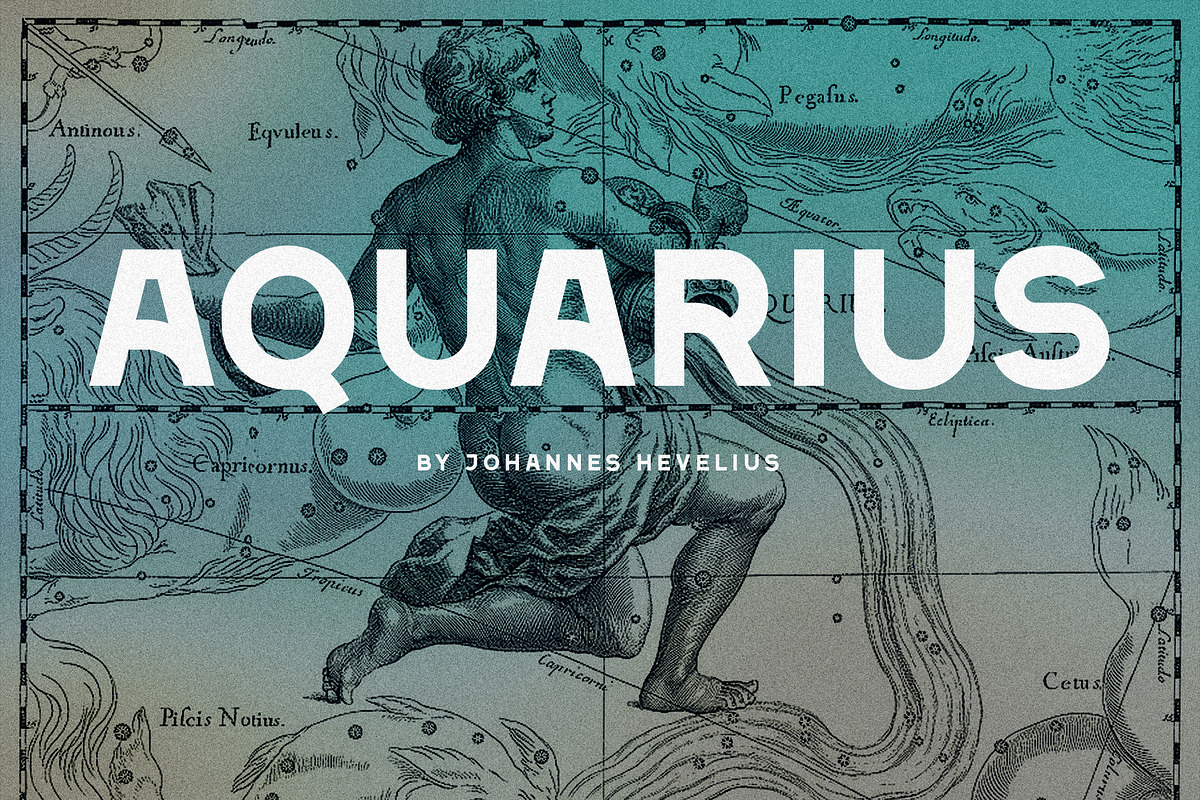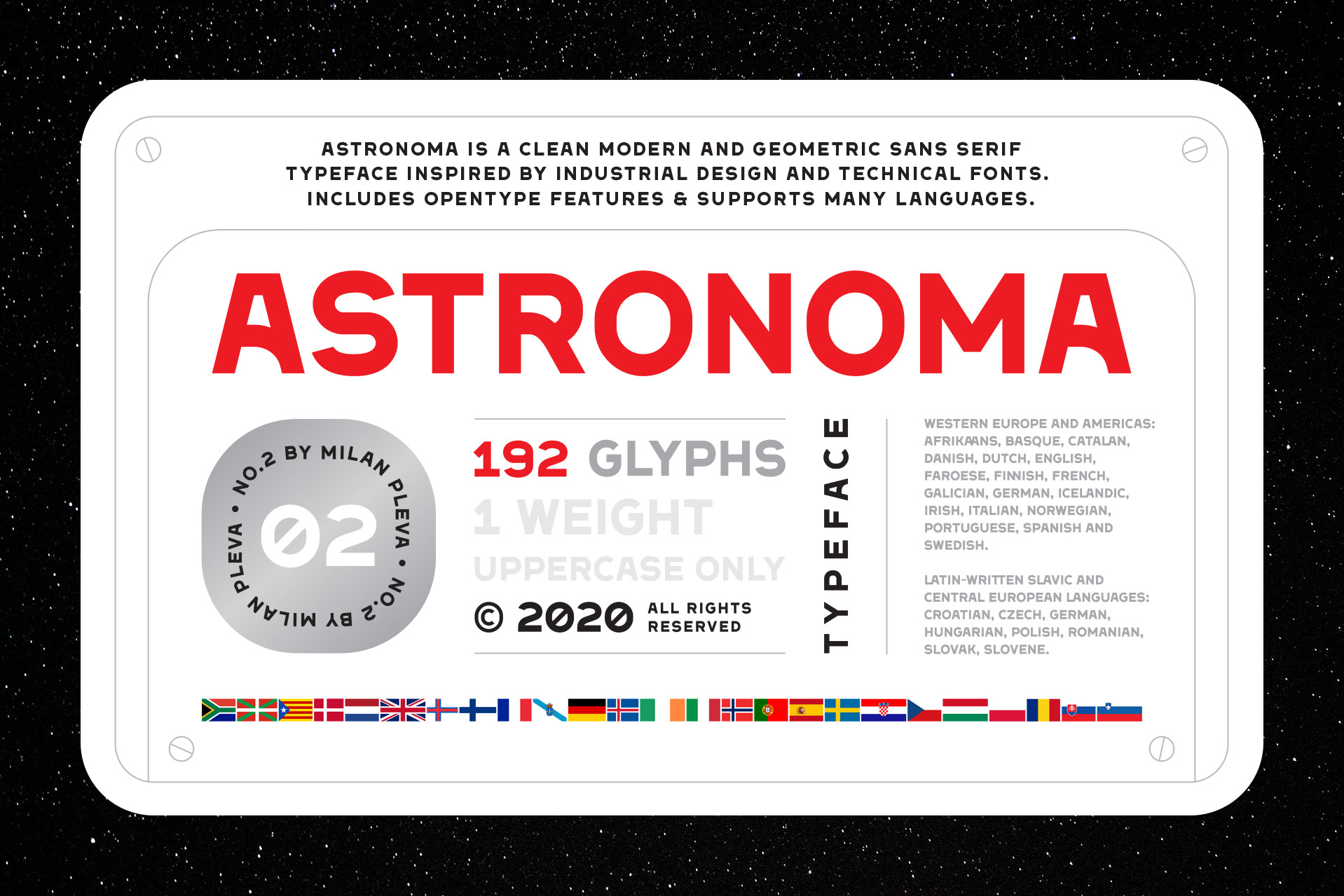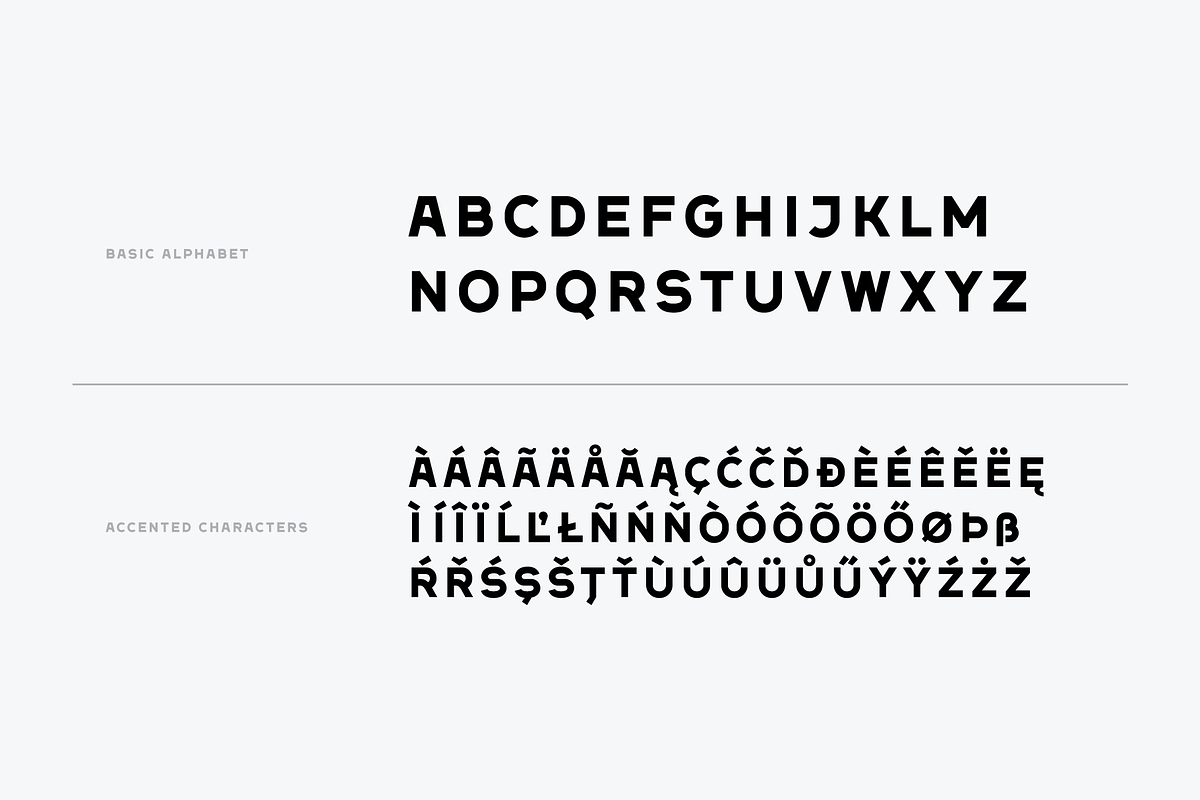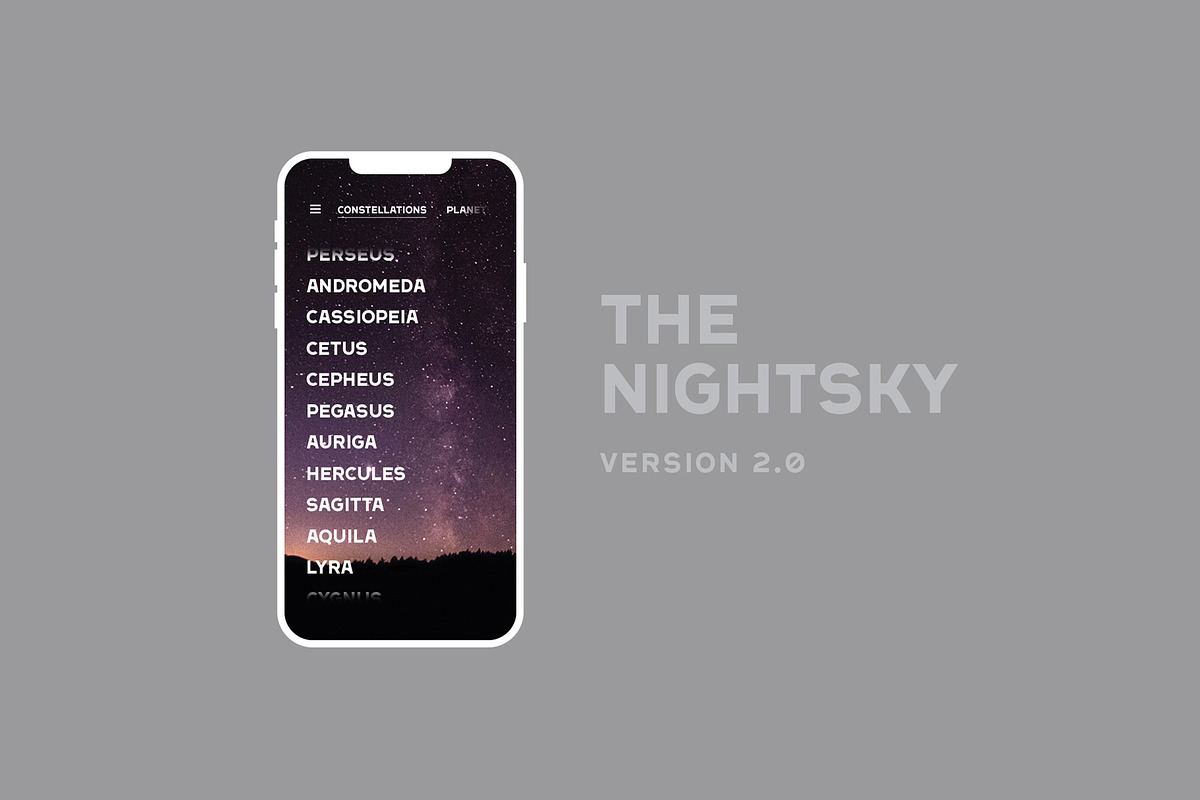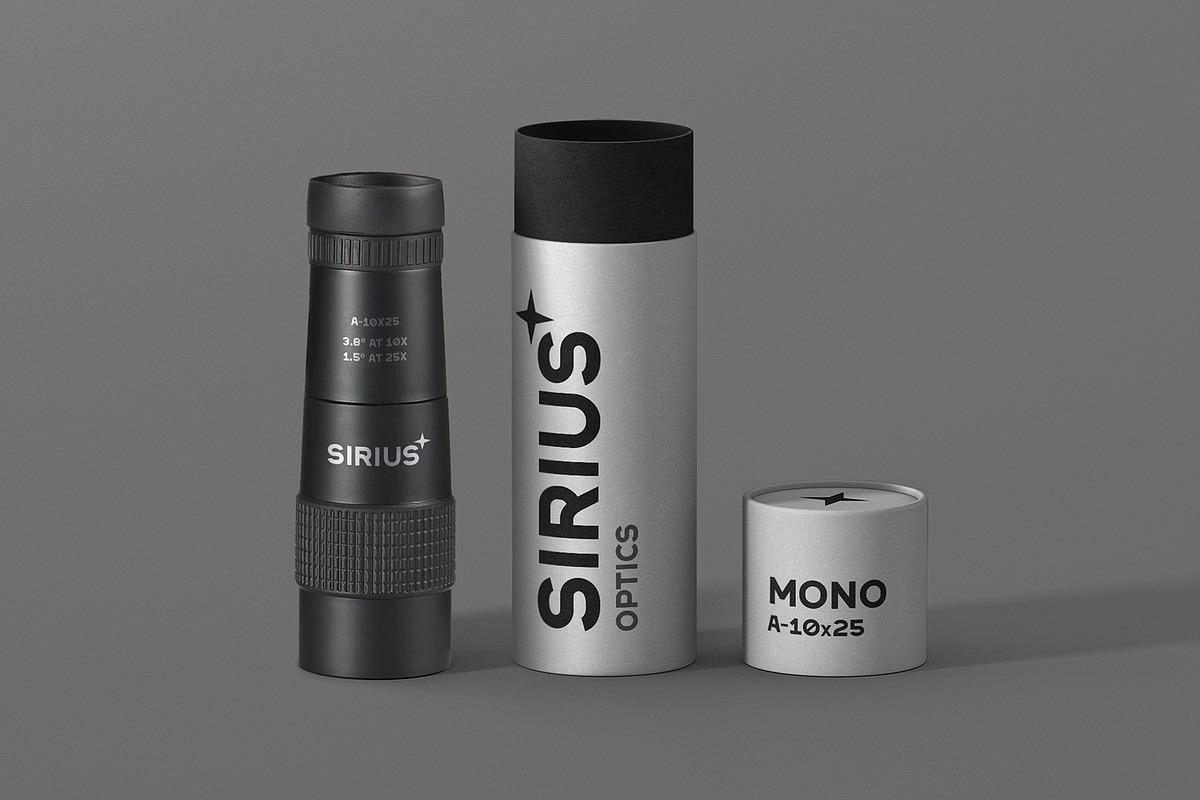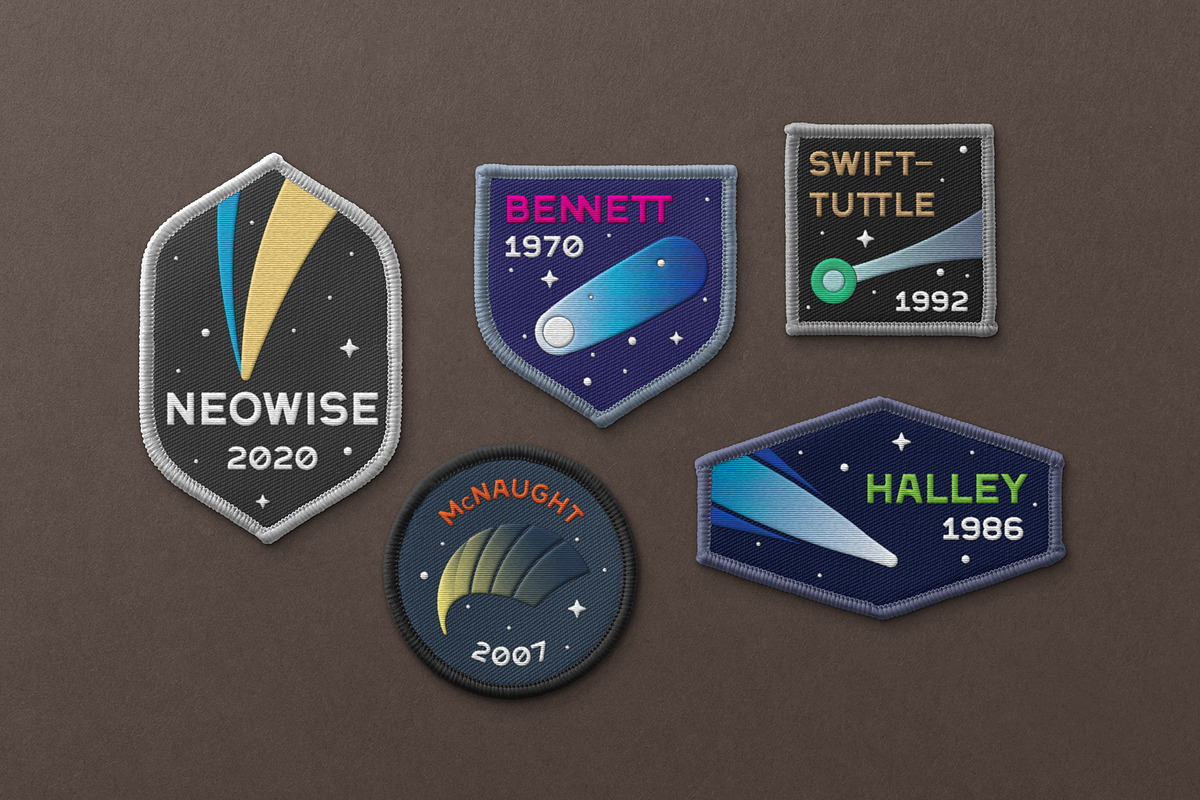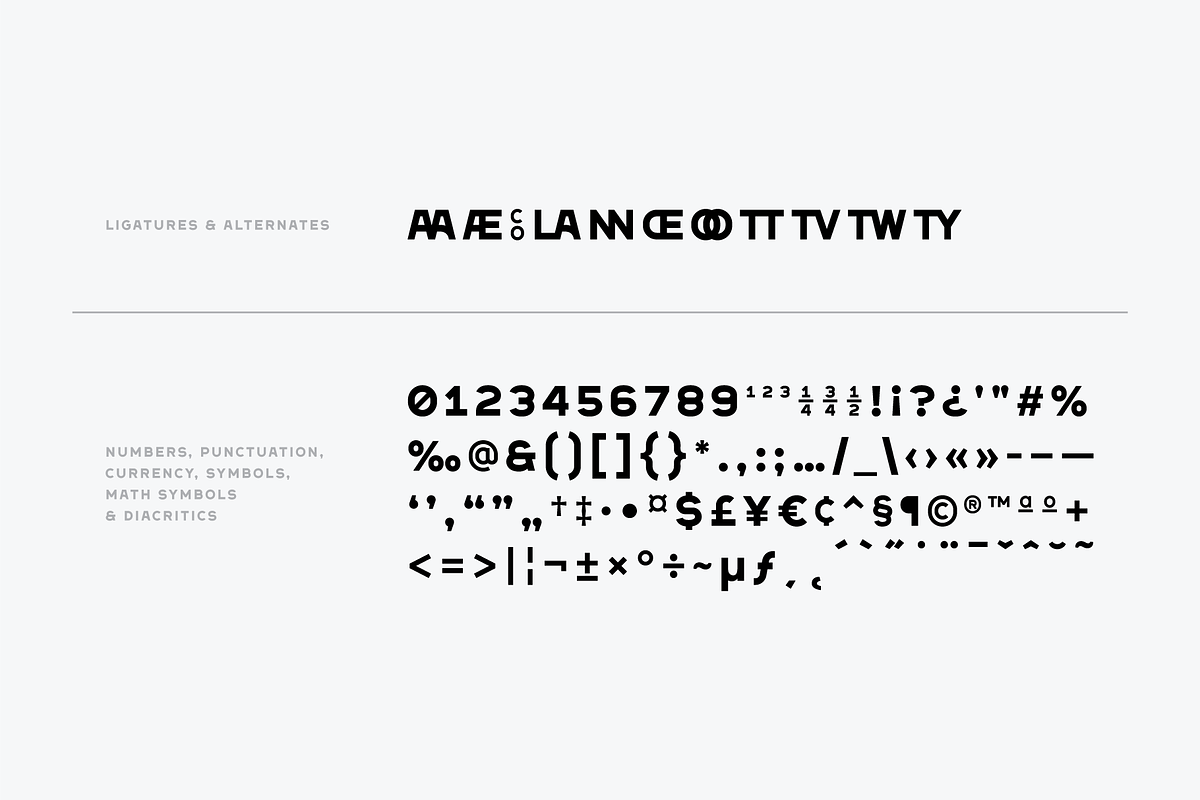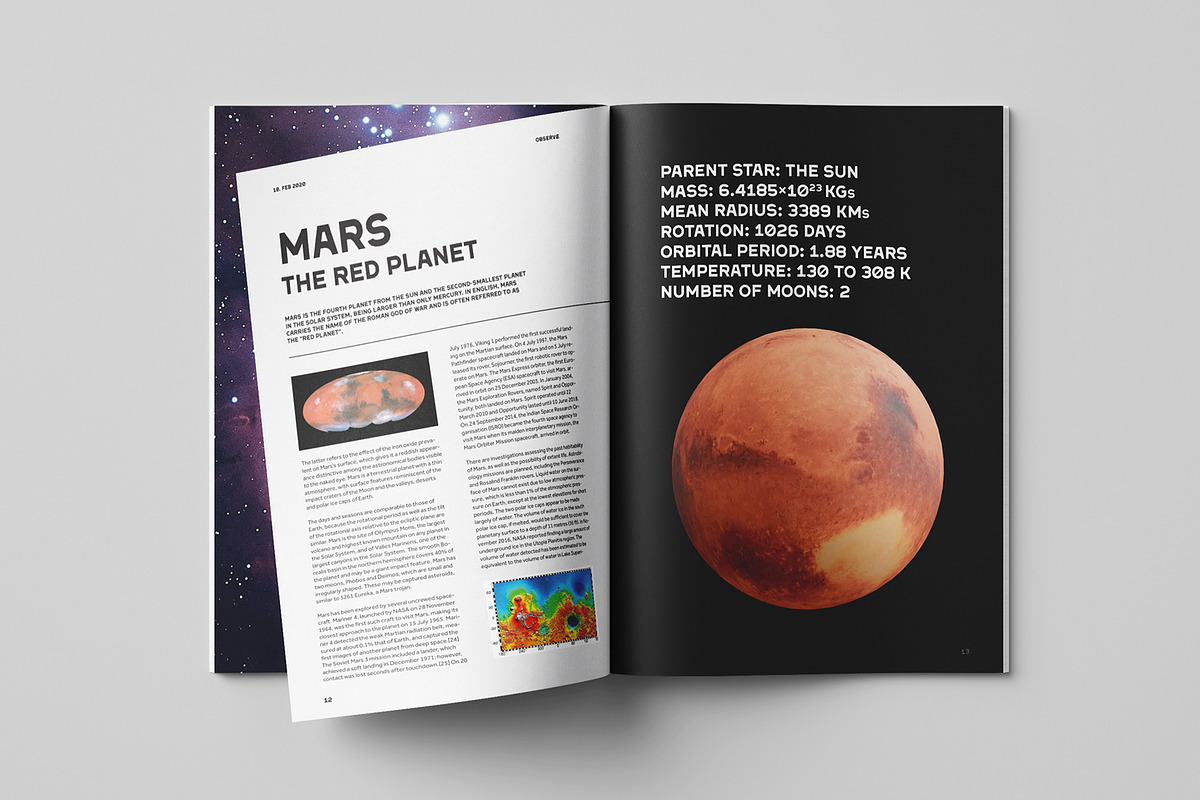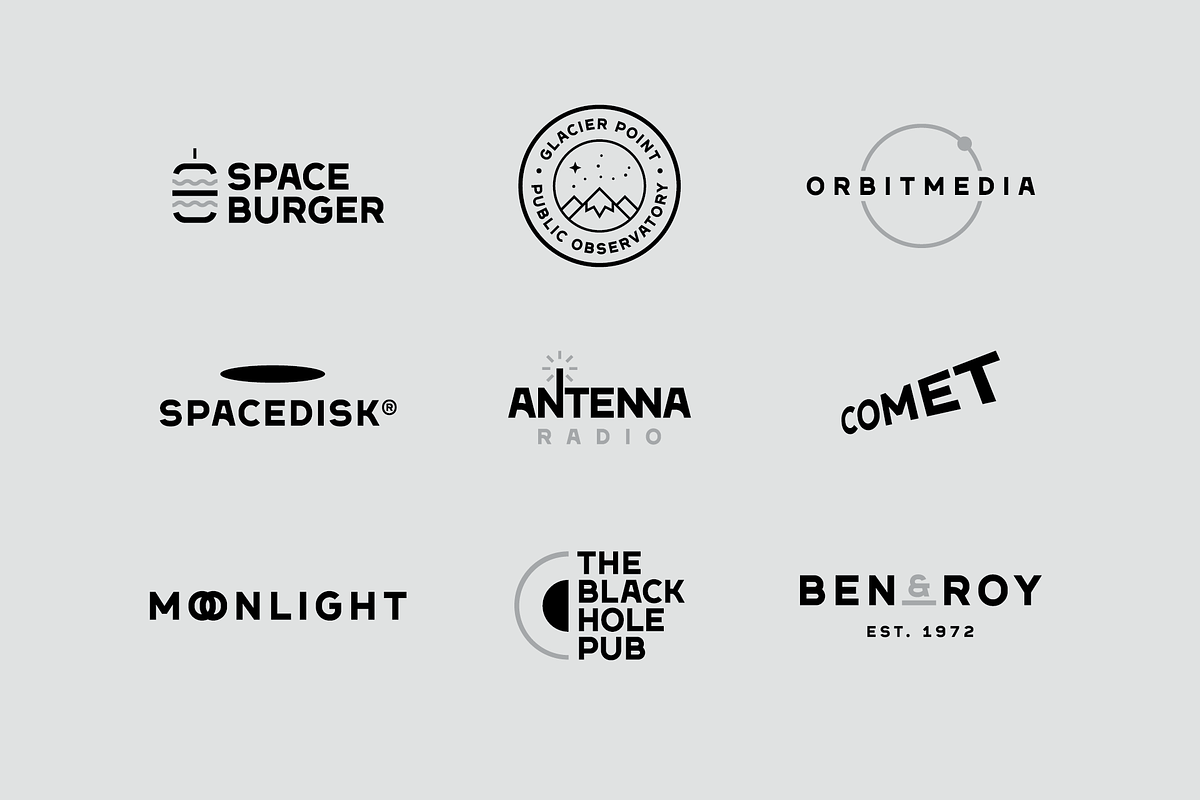
Astronoma Typeface
Astronoma is a clean modern and geometric sans serif typeface inspired by industrial design and technical fonts. Includes OpenType features & supports many languages. Astronoma is ideal for headlines, headers, logos, labels, packaging, presentations, magazines, invitations, etc.
- Basic latin alphabet A-Z
- 11 Ligatures & Alternates
- 56 Accented characters
- Numbers, Punctuation, Currency, Symbols, Math symbols & Diacritics
LANGUAGE SUPPORT
Latin 1 + Latin 2
Western Europe and Americas: Afrikaans, Basque, Catalan, Danish, Dutch, English, Faroese, Finnish, French, Galician, German, Icelandic, Irish, Italian, Norwegian, Portuguese, Spanish and Swedish.
Latin-written Slavic and Central European languages: Czech, German, Hungarian, Polish, Romanian, Croatian, Slovak, Slovene.